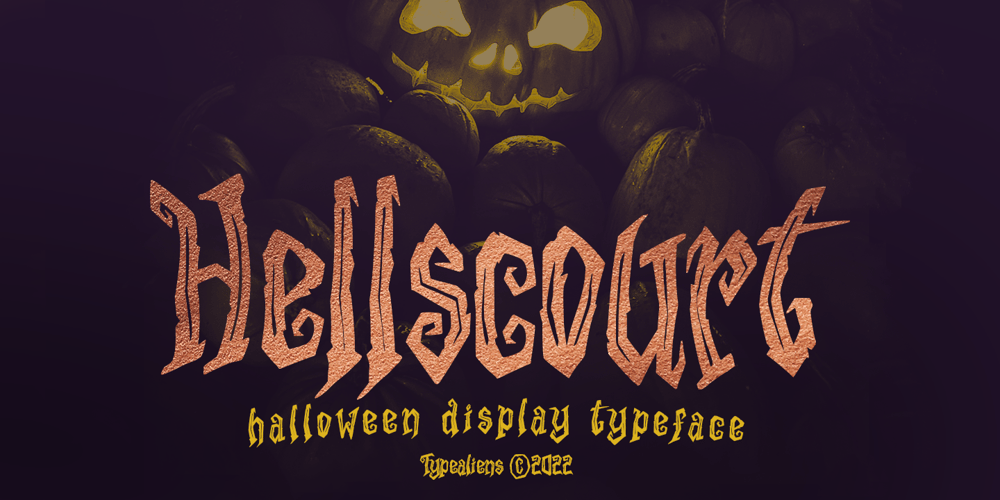
Hellscourt Font Family was designed by Ilham Wahyu and published by Ilhamtaro. Hellscourt contains 1 styles and family package options. HELLSCOURT is a display font intended for horror themes such as halloween events, horror movies and other horror events. With a rough style, adding to this font is even more scary, because technically it is digital hand lettering, so it adds to the impression that this font is handcrafted and the vector process does not refine the rough parts so that it still has a rough impression.To enable the OpenType Stylistic alternates, you need a program that supports OpenType features such as Adobe Illustrator CS, Adobe Indesign & CorelDraw X6-X7. Guides to access all alternates glyphs : http://adobe.ly/1m1fn4YCheers!